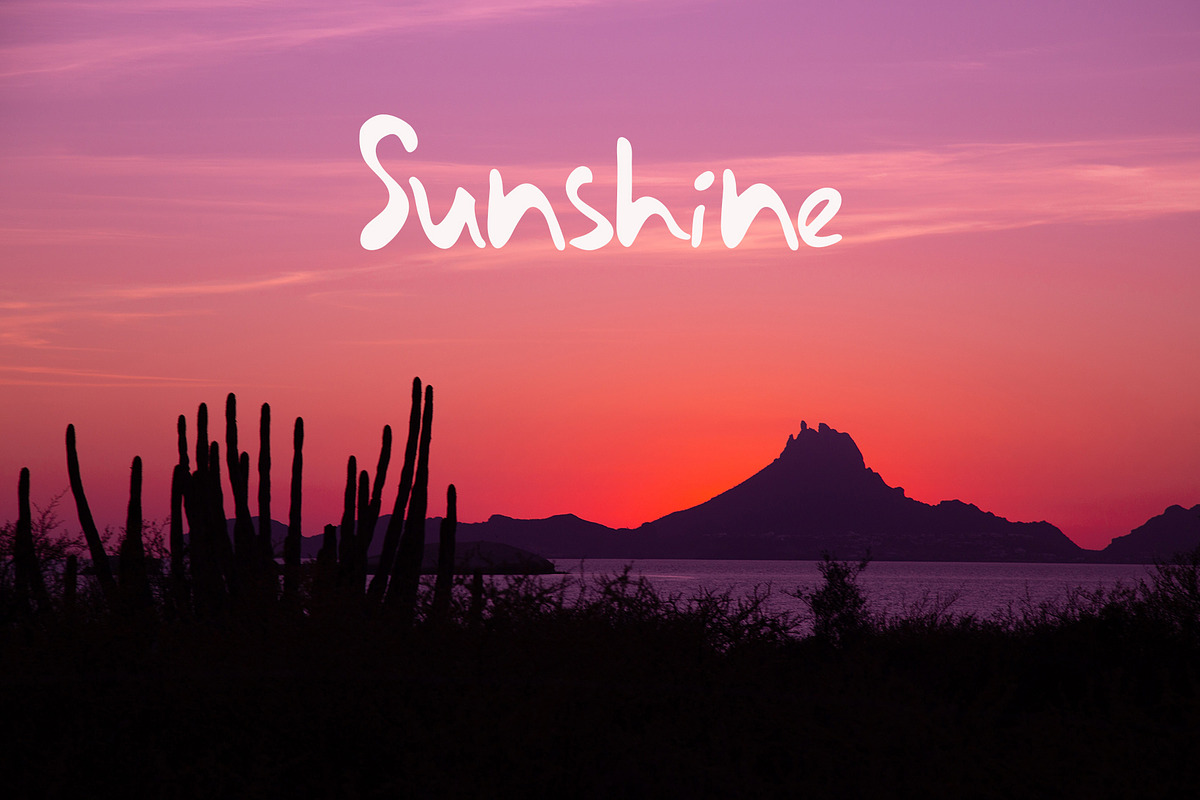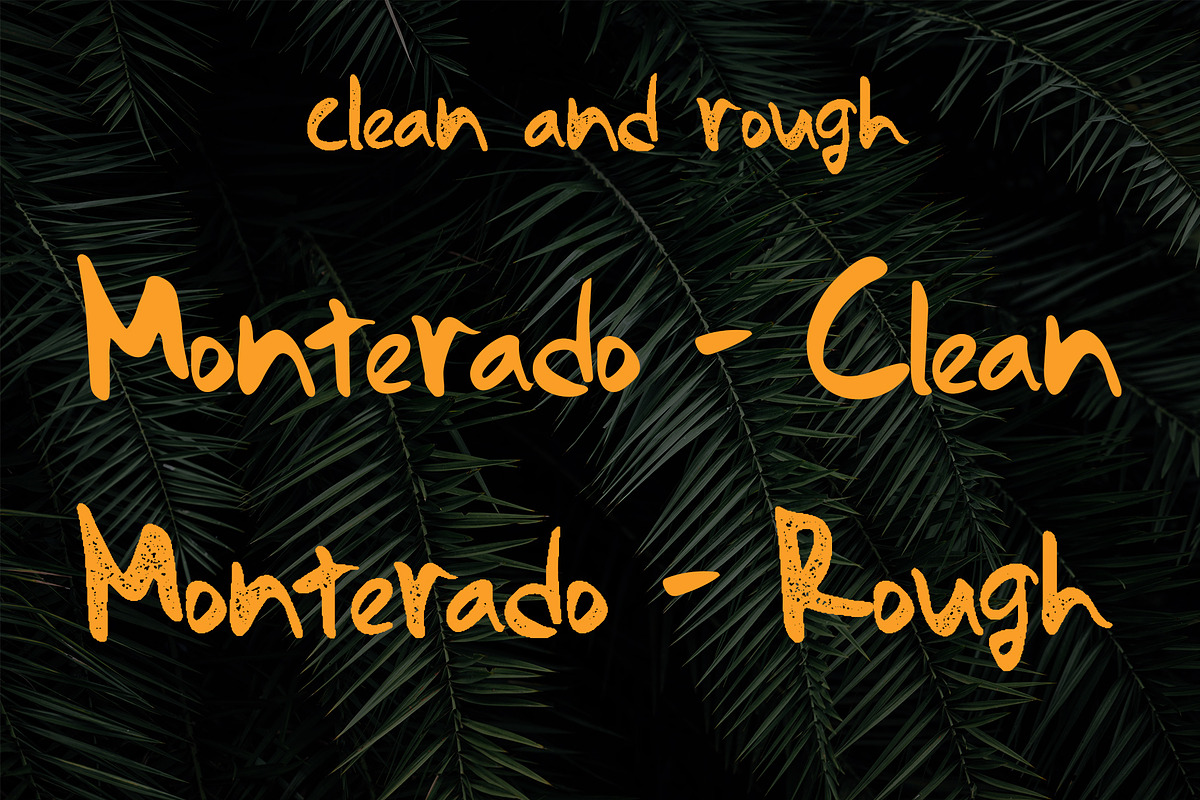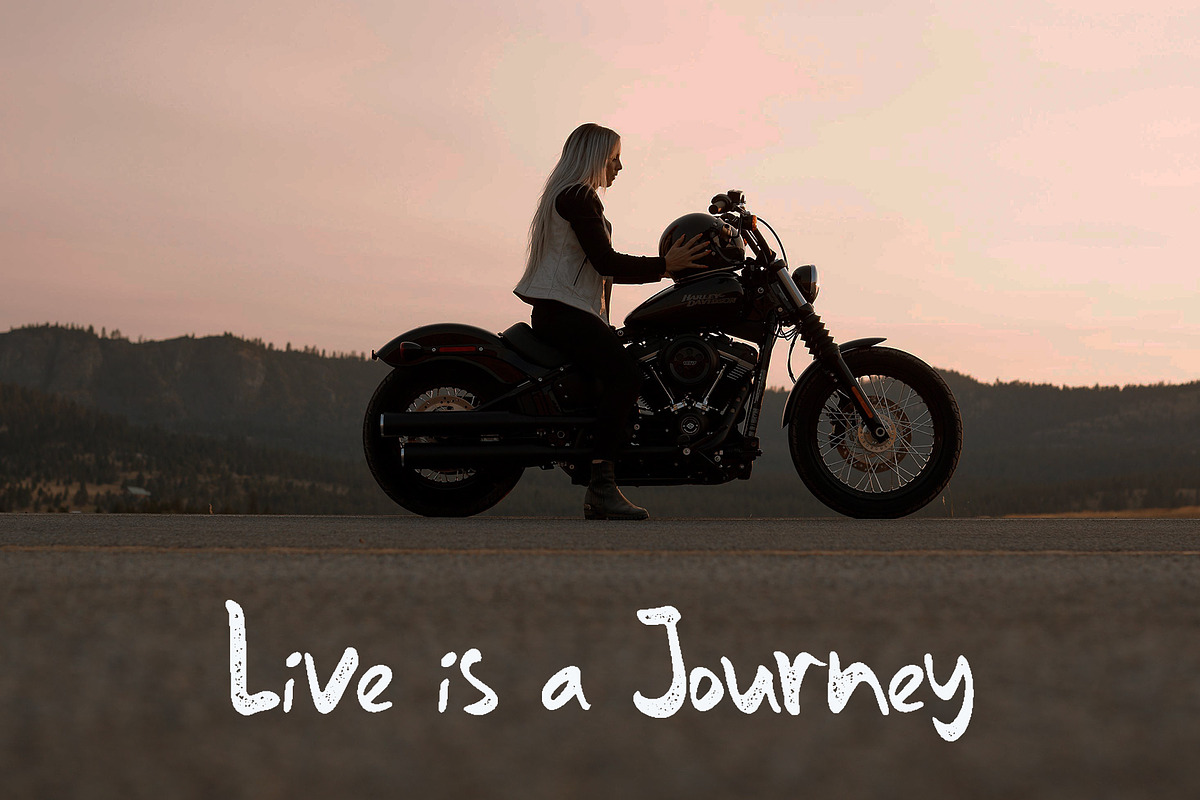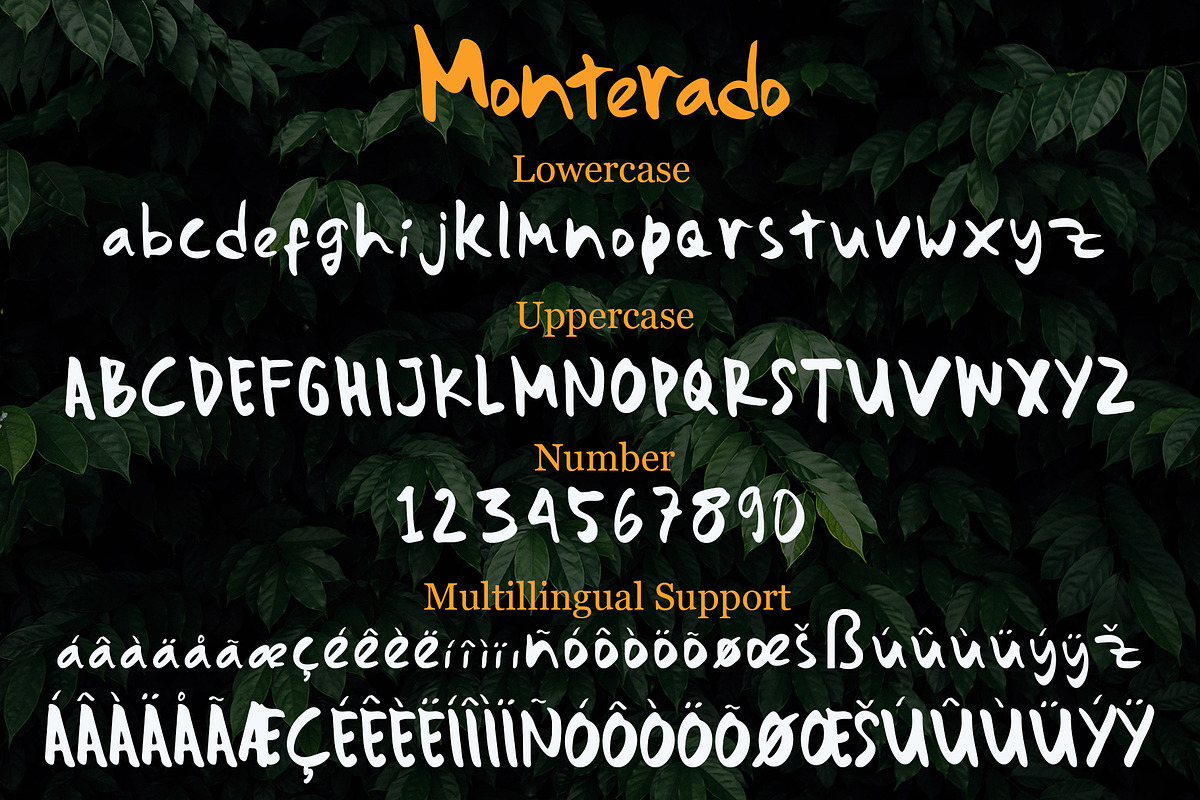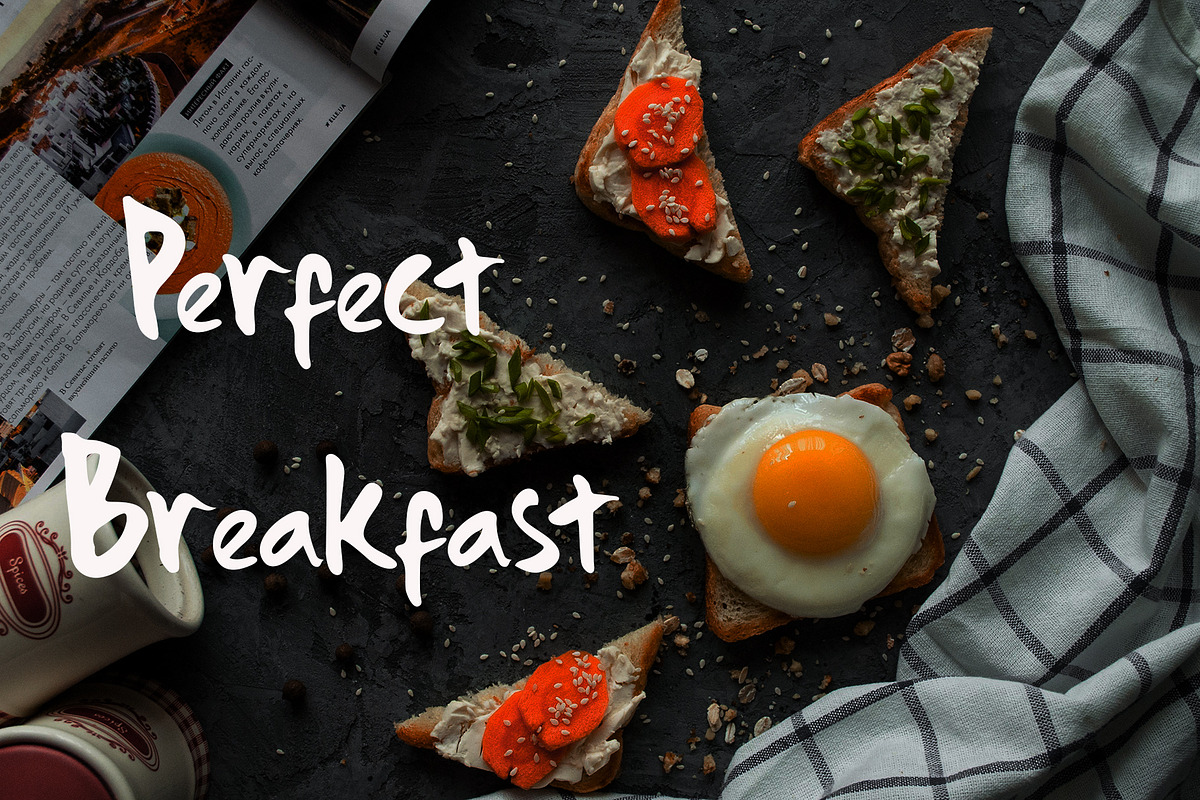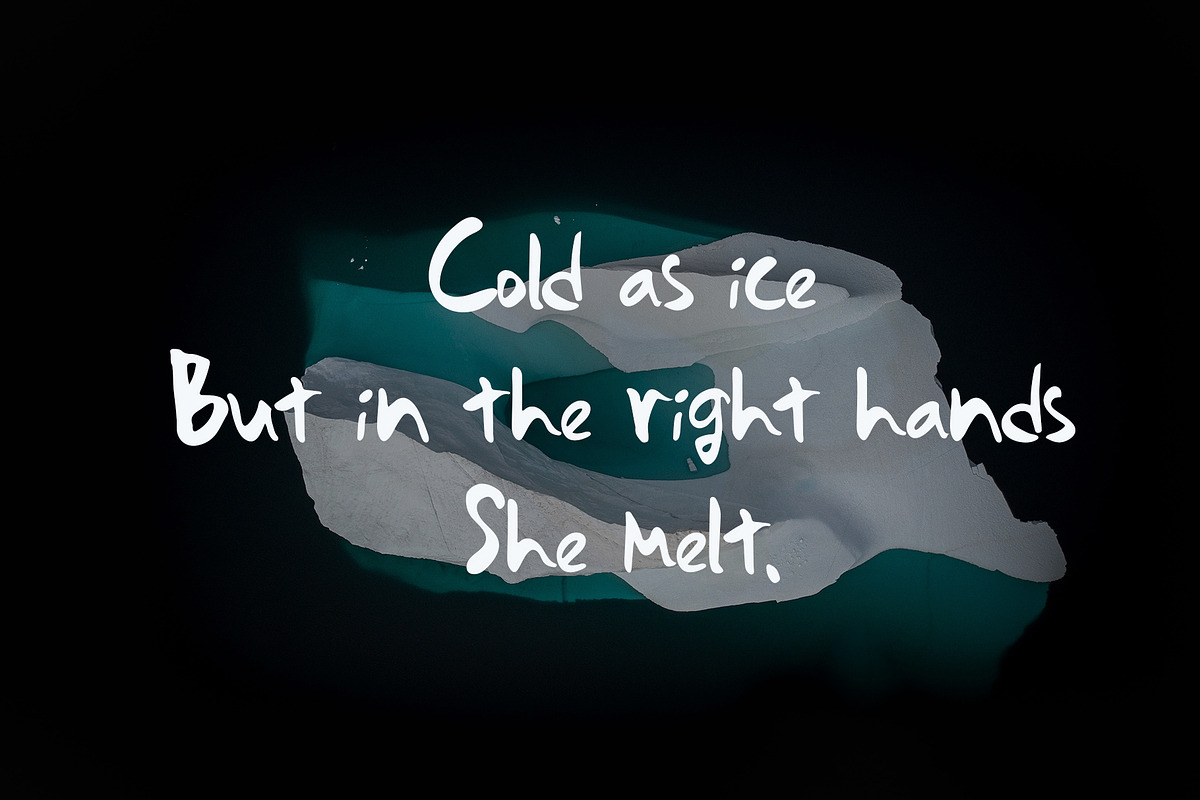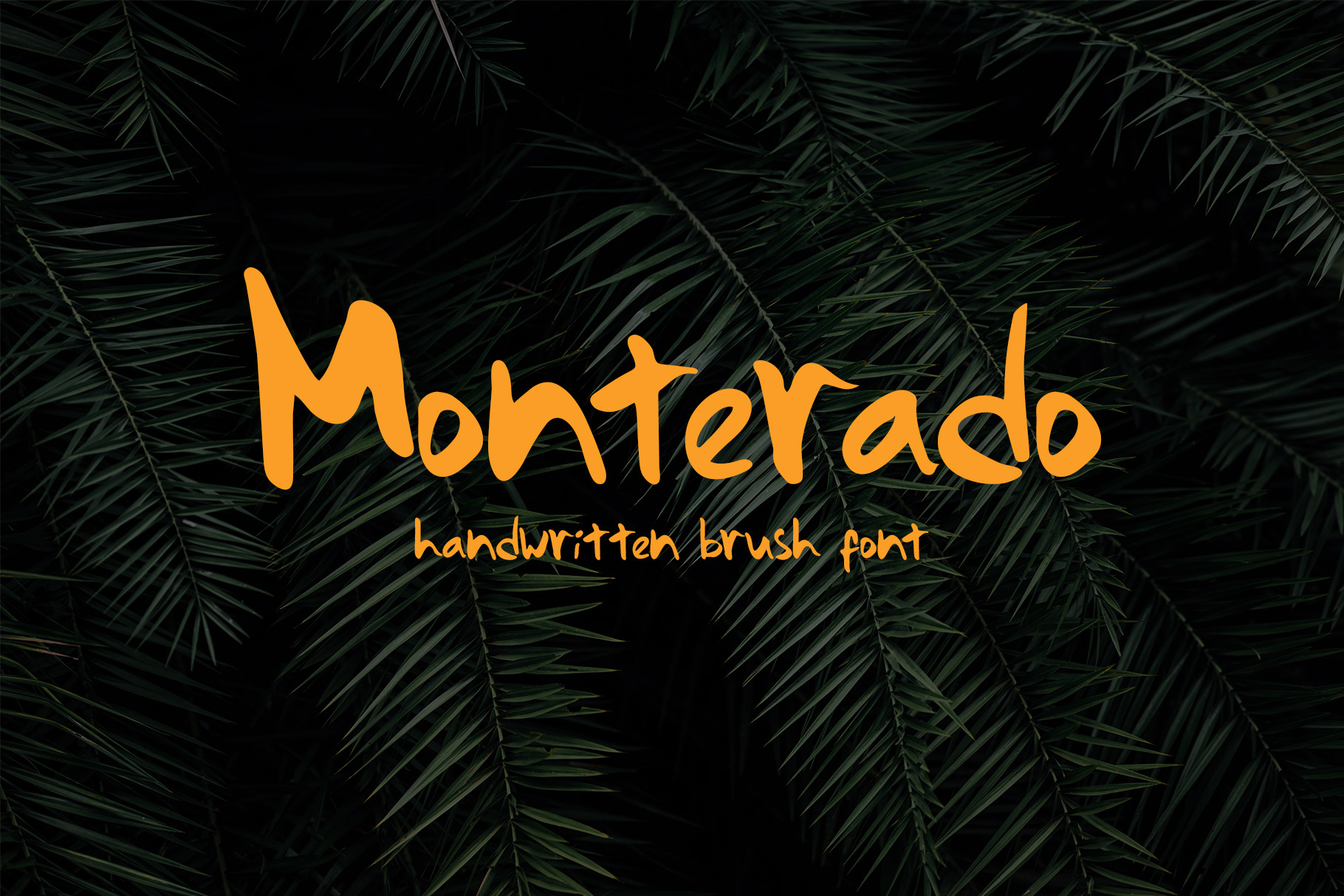
Monterado - Handwritten Brush Font
Monterado is real handwritten brush font, made from scratches of paper, so it looks perfectly natural. Monterado is awesome for Adventure, branding projects, book, logo, wedding designs, social media posts, advertisements, product packaging, product designs, label, photography, watermark, invitation, stationery and any projects that need handwriting taste.
Monterado includes two version of gorgeous uppercase, lowercase, numerals, a large range of punctuation and multilingual support.